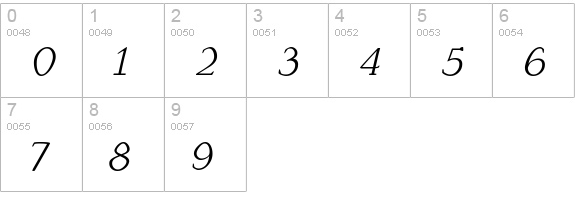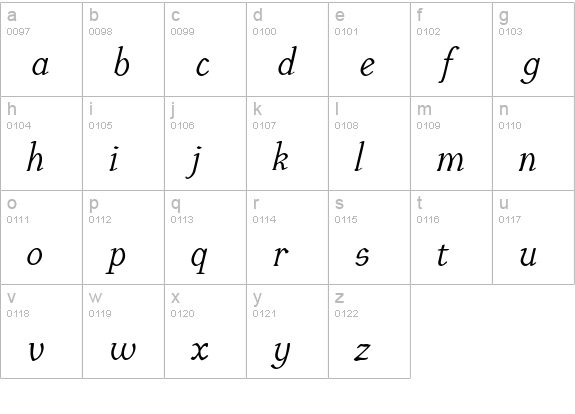
EuroikaKamp Italic Font Details
EuroikaKamp Italic is a distinctive, italic variant in the EuroikaKamp typeface family \xE2\x80\x94 well suited to design and typography projects.